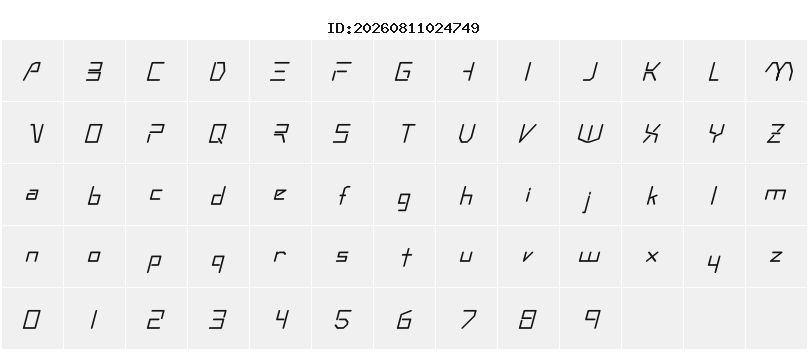
About Rsandromed italic.ttf
Rsandromed italic.ttf is a modern, elegant sans-serif font designed for ultimate readability and visual harmony. Perfect for branding, headlines, web design, and print materials.